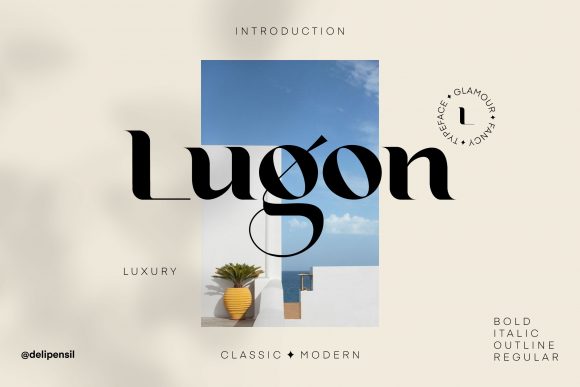
In a world filled with monotonous fonts, step into the realm of refined elegance with Lugon Font, the epitome of modern sophistication. This exquisite font family brings your creative visions to life, transforming them into works of art that captivate and inspire. With its delicate serifs and timeless appeal, Lugon Font elevates your designs to new heights, making a lasting impression that leaves them in awe.
With its clean and contemporary lines, Lugon Font injects a touch of timeless beauty into your projects. Whether crafting a captivating resume, designing eye-catching logos, or creating alluring social media graphics, this font family effortlessly enhances the impact of your work. Experience the joy of seamless creativity as you watch your words dance across the page, exuding an air of sophistication and poise.
Lugon Font's versatility knows no bounds. Its meticulously crafted characters effortlessly adapt to a myriad of design styles, seamlessly blending into your creative endeavors. From the minimalist allure of modern designs to the intricate details of vintage-inspired projects, Lugon Font chameleon-like ability to transform makes it an indispensable tool for designers seeking limitless expression.
So embrace the allure of Lugon Font, let your creativity soar, and unveil the boundless possibilities that await you. Your designs deserve the best, and with Lugon Font, they'll receive nothing less. Journey into a world of elegance, taste, and refinement, and let your creations leave an indelible mark on the world. Indulge in the beauty of Lugon Font today and witness the transformation that awaits.